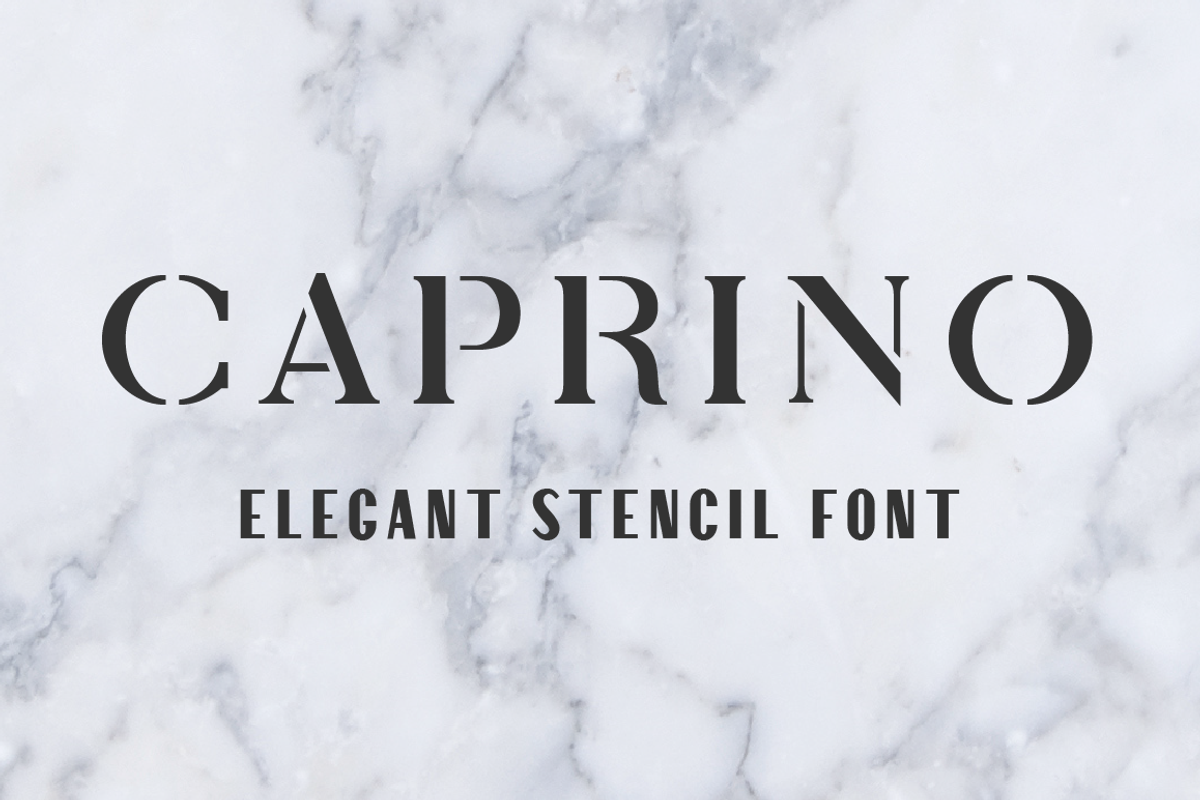
Caprino Stencil Font Free Download
Caprino Stencil Font Free Download is a strong and industrial-inspired typeface featuring bold, clean lines with a modern stencil twist. Perfect for military-themed designs, urban branding, posters, and editorial layouts, this font makes a striking statement with its sharp edges and contemporary feel. Please note that you must purchase this font for commercial use, but it is available as a free download for testing purposes. Add a robust, structured aesthetic to your creative projects with Caprino Stencil Font Free Download, and make your typography stand out with confident, cutting-edge style.